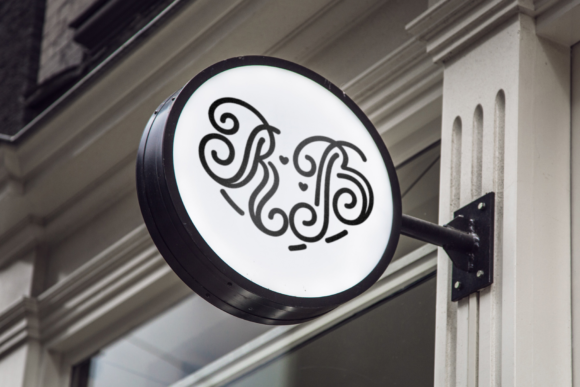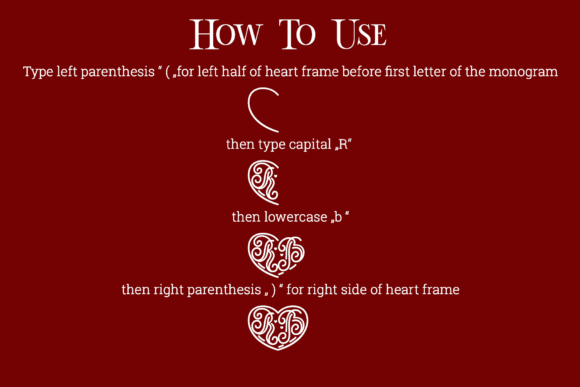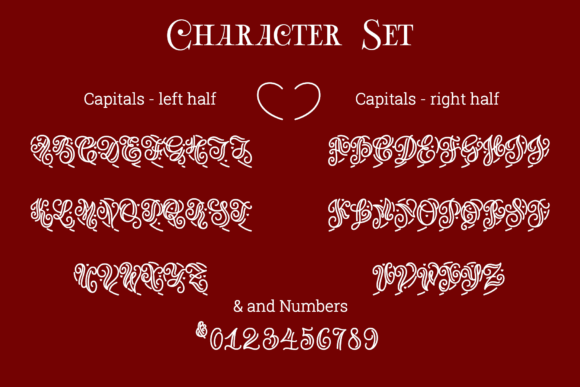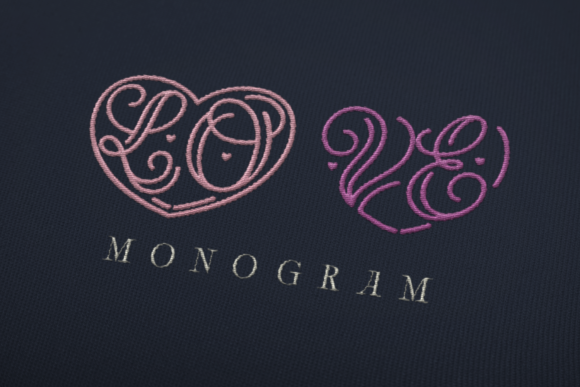
Introduction to Lo-Ve Monogram Font
Lo-Ve Monogram is a charming display font.
Use this font for any crafting project that requires a personalized look .
Key Features of Lo-Ve Monogram Font
Why Choose Lo-Ve Monogram Font?
Lo-Ve Monogram Font offers exceptional quality and versatility, making it a valuable addition to your design toolkit. Whether you’re creating for personal projects or commercial use, Lo-Ve Monogram Font delivers professional results.